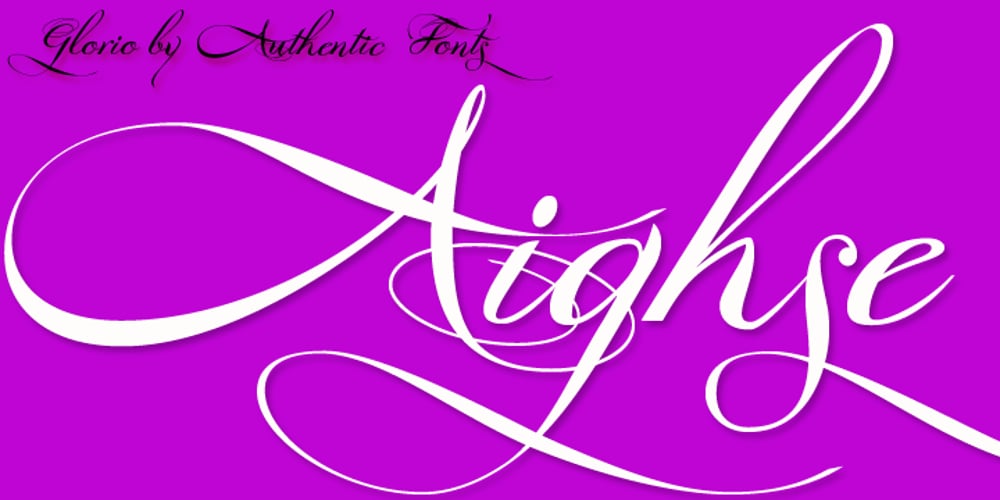
Glorio Font Family was designed by Julius Wiescher and published by Authentic. Glorio contains 1 styles and family package options. Glorio is an exceptionally elegant Copperplate typeface, perfect for letterheads, invitations and business cards.